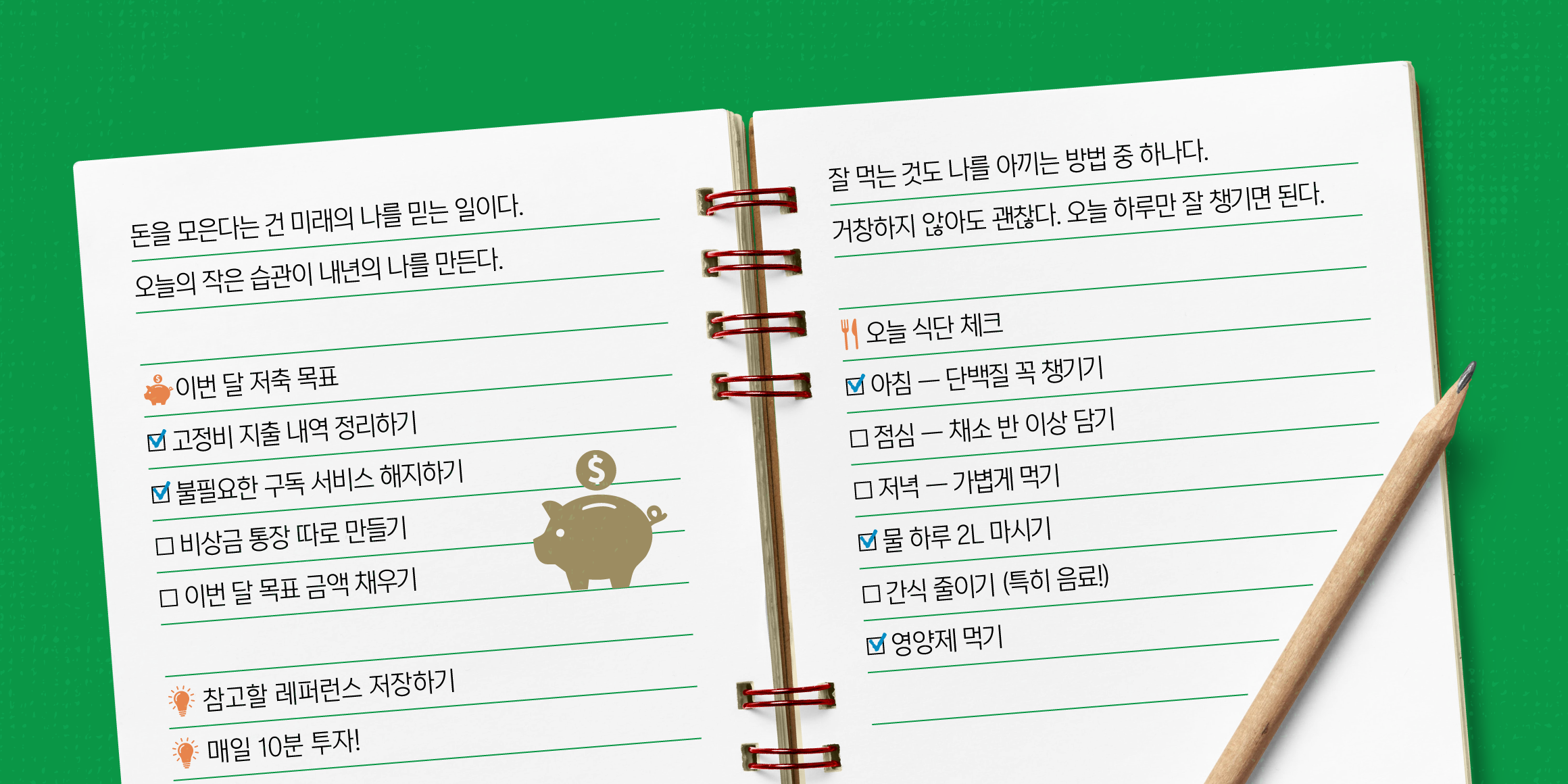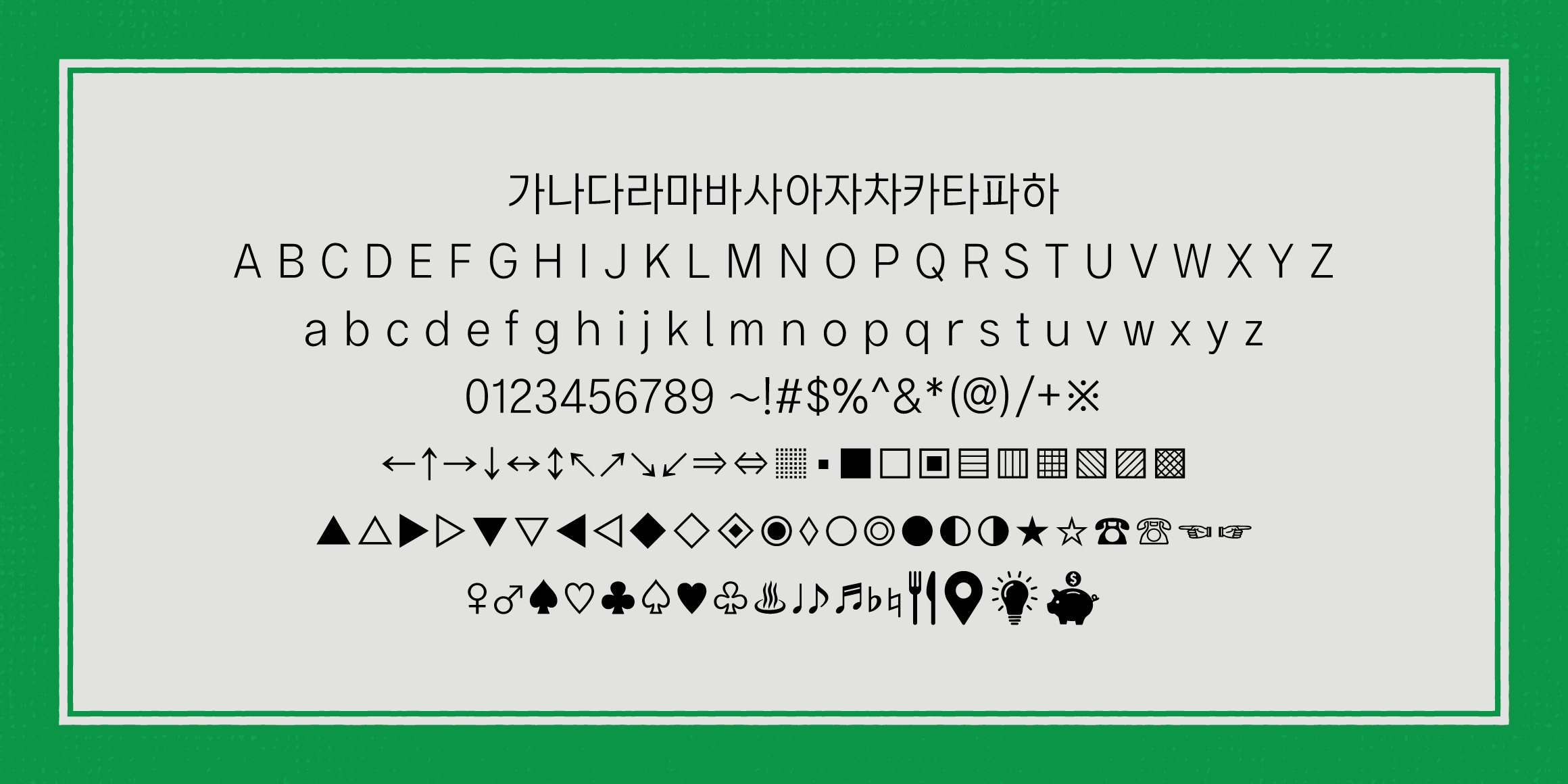
JDay7Sans
Day7! A modern sans-serif font you’ll never get tired of using, even every day.
It’s not too heavy, so it feels light and easy on the eyes.
With its slightly tall proportions,
it offers excellent readability even in longer texts.
Simple and well-balanced,
it gives a clean and stable impression.
The rounded, non-flat ㅇ adds a touch of sophistication,
while the subtly asymmetrical shapes of ㅅ and ㅈ
bring a human touch—making the font feel soft and warm rather than rigid.